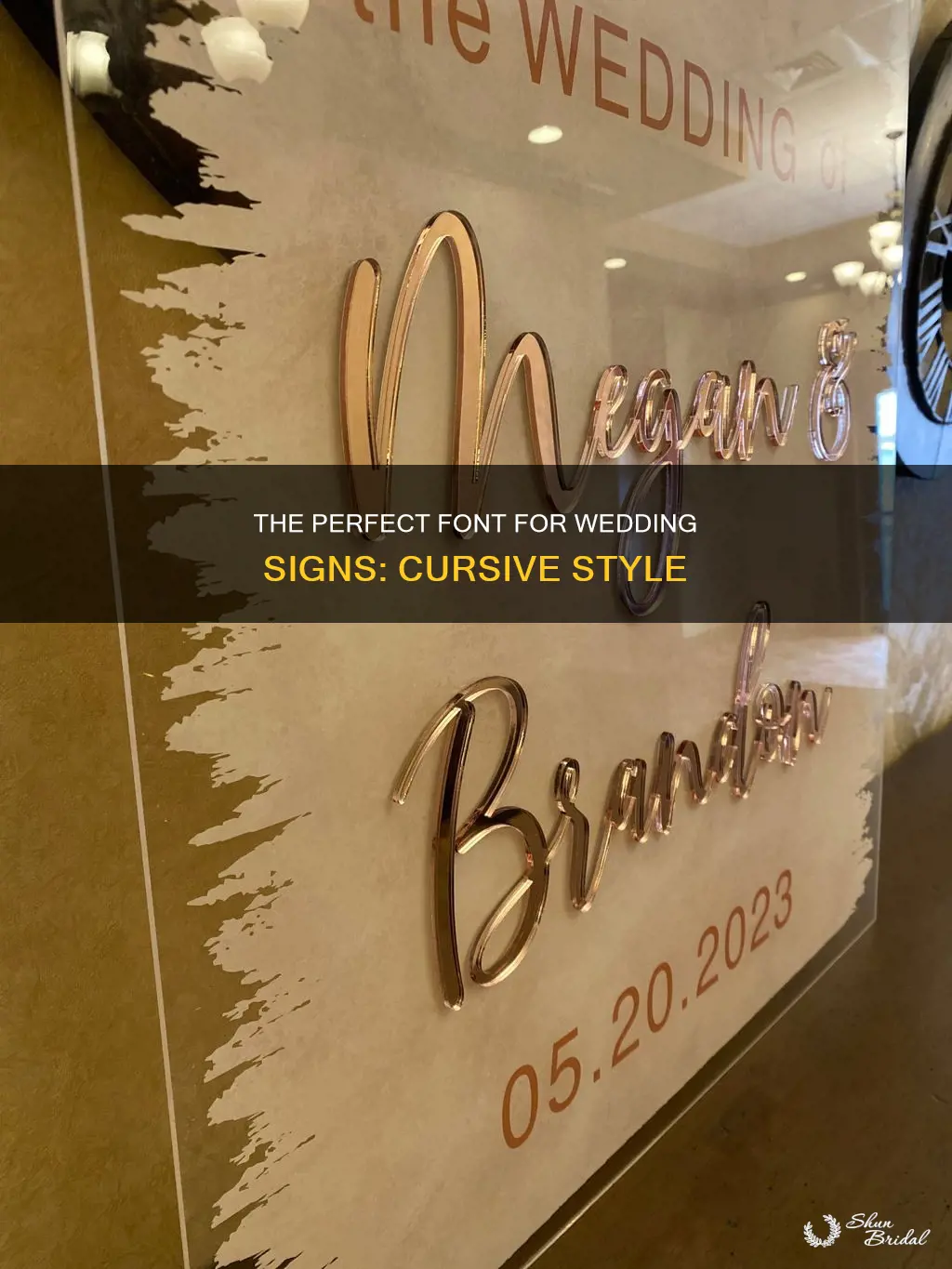
Choosing the right font for your wedding signs is an important decision that can add a stylish touch to your wedding crafts. There are many excellent free fonts to bring your wedding ideas to life, from elegant and whimsical to playful and bold. For example, Feasibly is a beautiful and free cursive font with a single-line style, perfect for crafting wedding invitations, labels, and envelopes. If you're looking for a font for your wedding invites and envelopes, Dear Agatha is a combination of a connecting script and a super-readable all-caps sans-serif font. For a classic wedding invite combination, a cursive font paired with a sans serif works well.
Font combinations for wedding signs
Choosing the right font for your wedding signs is an important decision, as it can add a stylish touch to your wedding crafts and help create a cohesive design concept for your special day. Here are some font combinations to consider for your wedding signs:
Cursive and Sans-Serif Pairings
A popular choice for wedding signs is to pair a cursive or script font with a sans-serif font. This combination creates a balance between elegance and readability. Some specific font pairings in this style include:
- Madelyn Heart, a cursive calligraphy font with elegant swirls and heart accents, paired with a simpler sans-serif font for addresses or other body text.
- Dear Agatha, a combination of a connecting script and a highly readable all-caps sans-serif font.
- Great Vibes, a highly readable cursive font with a subtle slant and medium weight, paired with Montserrat, a sans-serif font with uniform, straight lines.
- Feasibly, a 100% free cursive font with a single-line style, paired with a simple sans-serif font.
- Le Mores, a serif and script font duo, and Dear Agatha, a sans-serif and cursive pairing.
Serif and Sans-Serif Pairings
Another option is to pair a serif font with a sans-serif font. This combination can create a classic or modern look, depending on the specific fonts chosen. Some examples include:
- Playfair Display, a classic-type serif font with subtle transitions between thick and thin lines, paired with Montserrat Light, a sans-serif font with even linearity.
- A serif font like Merriweather or Garamond paired with a sans-serif font like Century Gothic for a modern look.
Other Combinations
There are also other font combinations that can be used to create unique and whimsical wedding signs:
- A slab serif font like Aleo Light paired with a basic font like Open Sans for a non-traditional wedding.
- A geometric font like Sifonn paired with Forum, a font that offsets the geometric structure of Sifonn.
- A bold and attention-grabbing font like Norwester paired with Roboto, a font with a keyline aiding the text.
- A delicate and flexible serif font like Champagne & Limousines paired with a bolder serif font like Minna Drop for a unique twist.
When choosing a font combination for your wedding signs, it is important to consider legibility and the overall design concept. The fonts should also be consistent throughout the wedding day stationery and paper goods. Additionally, colour and size can be used to create contrast and highlight specific details.
Free wedding fonts
When it comes to wedding fonts, there are thousands of options available for personal or commercial use. The right font can add a touch of nostalgia and romance to your wedding designs, whether you're creating invitations, signs, or other wedding crafts.
One popular style for wedding designs is cursive or "joined-up" writing. Nickainley is a great example of a free cursive font with a unique, "joined-up" style. Feasibly is another beautiful and free cursive font with a single-line style that's perfect for wedding invitations, labels, and envelopes. If you're looking for a font with cute hearts and tails, Joseph Sophia is a charming script font that's also free to download.
If you're looking for a more traditional or modern font combination for your wedding designs, there are several free options to consider. For a delicate and flexible sans serif font, Champagne & Limousines is a great choice and is free for personal use. Minna Drop is another free serif font with a unique twist—its teardrop letter endings add a bit of pizazz while maintaining a sophisticated look. For a classic wedding invite combination, you can pair a cursive font like Great Vibes with a sans serif like Montserrat. Great Vibes is highly readable, with a subtle slant and medium weight, while Montserrat's uniform, straight lines provide a nice balance.
In addition to these options, there are thousands of free wedding fonts available online, ranging from playful to elegant, including many that are compatible with Cricut pens for beautiful results. When choosing a wedding font, it's important to consider legibility, especially for smaller font sizes, and you may also want to use accent fonts to highlight important information. With so many options to choose from, you're sure to find the perfect font to craft a wedding day to remember.
Additionally, there are free fonts available that can add a unique touch to your wedding. For instance, Feasibly is a free cursive font with a single-line style, perfect for invitations and envelopes. Better Together is another free font that adds a touch of whimsy with its bouncy writing style.